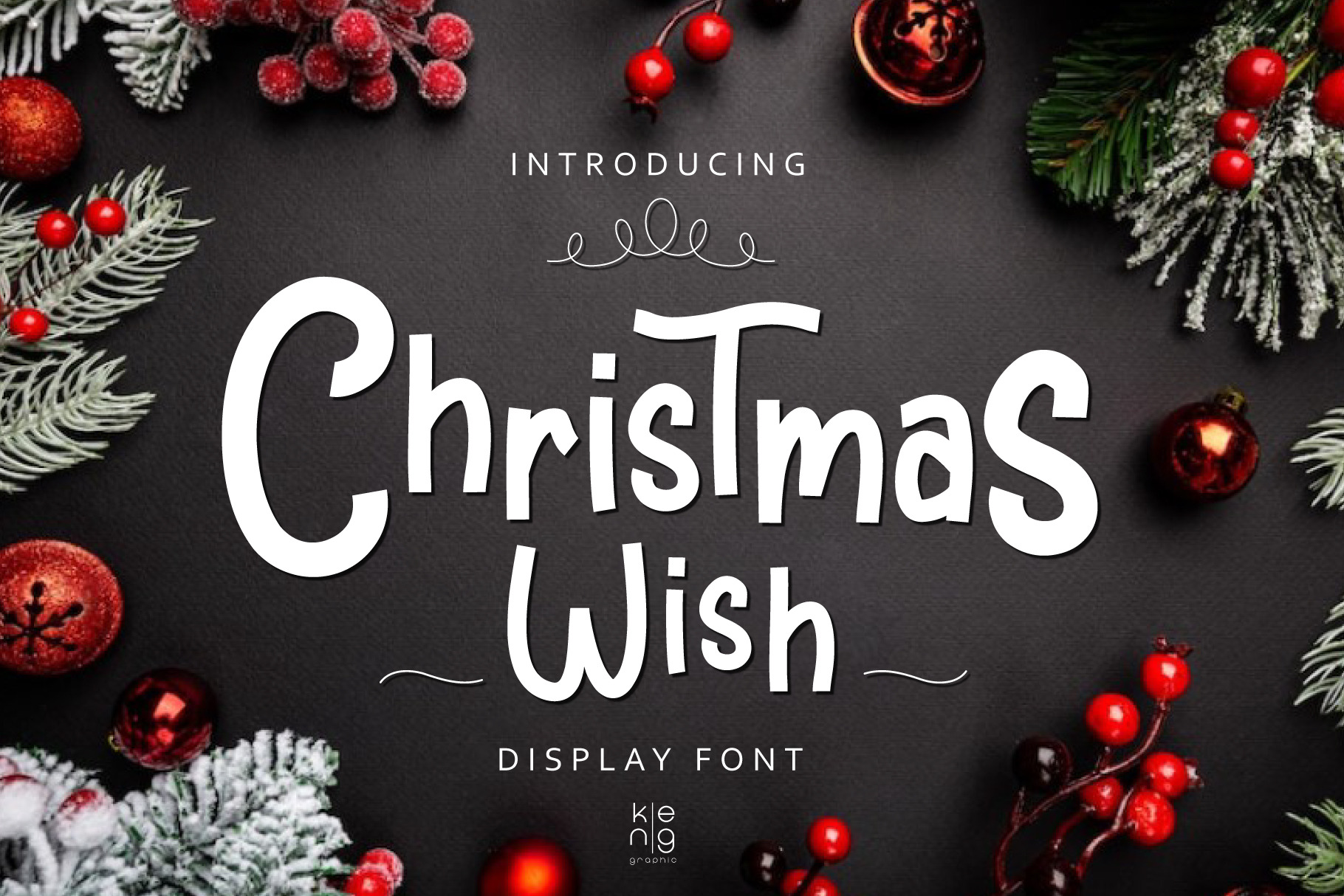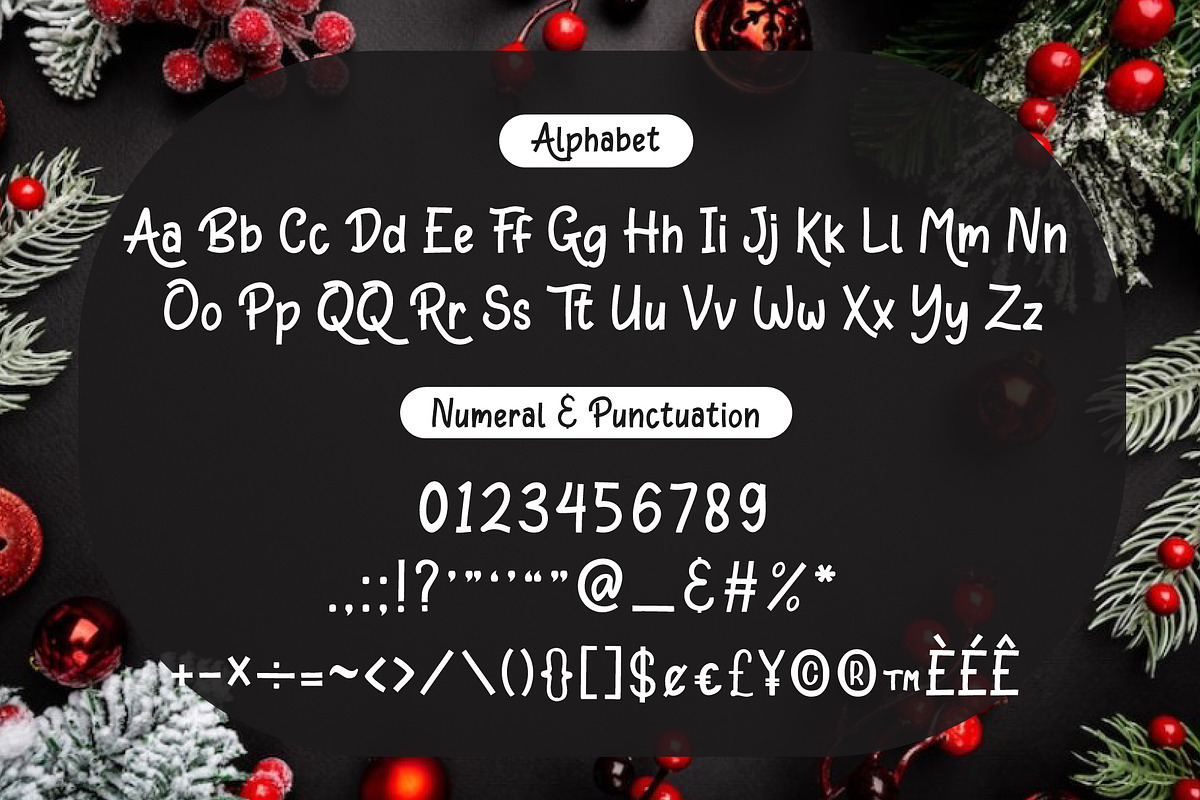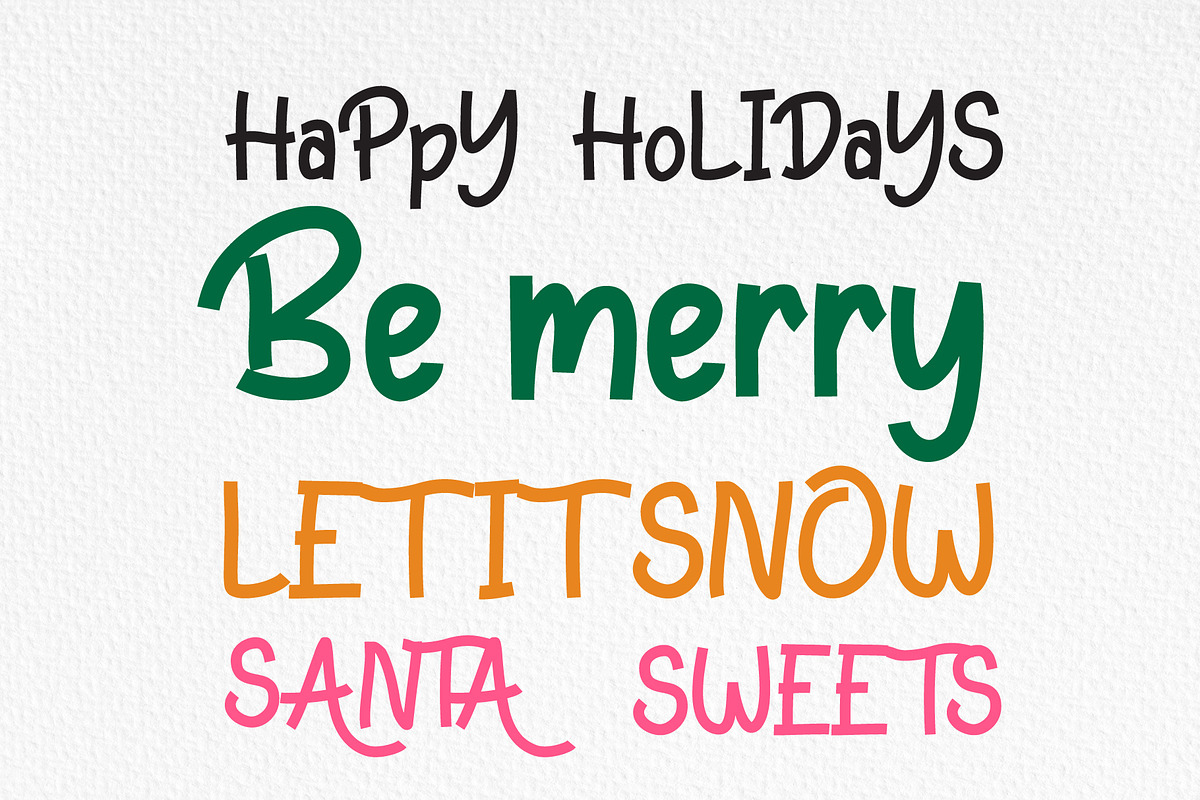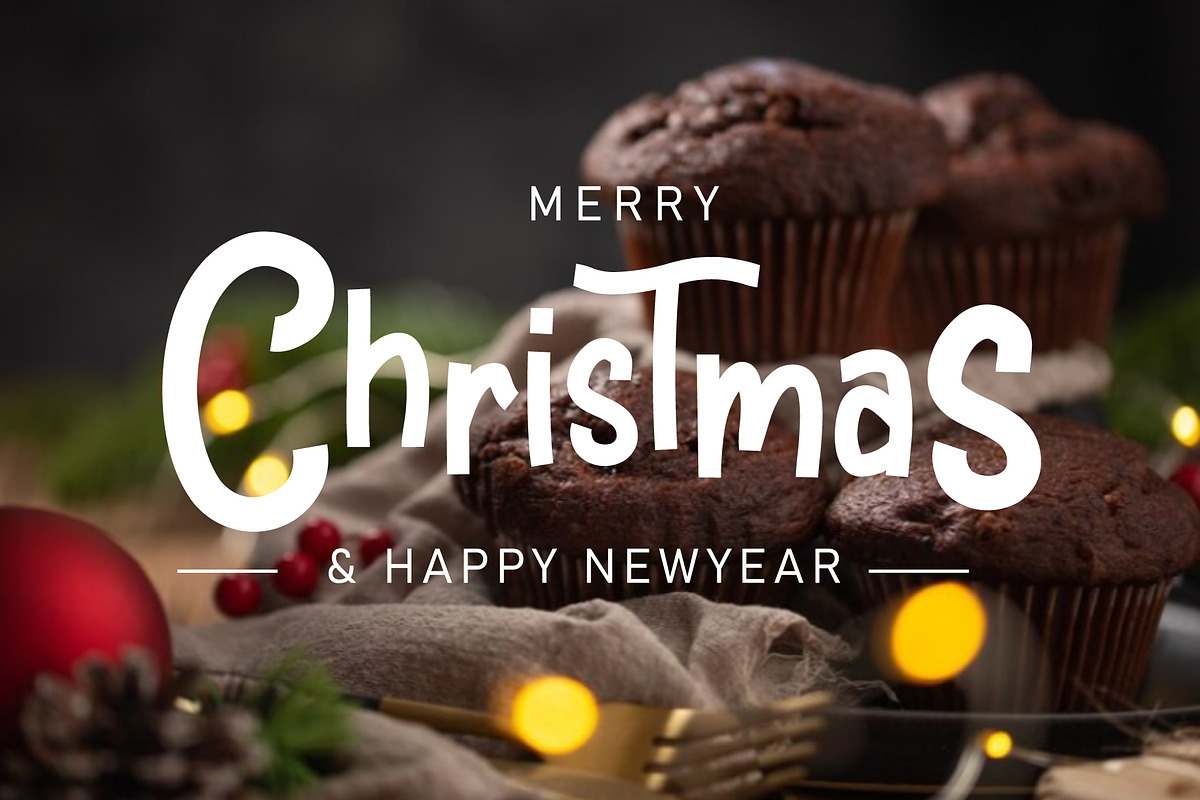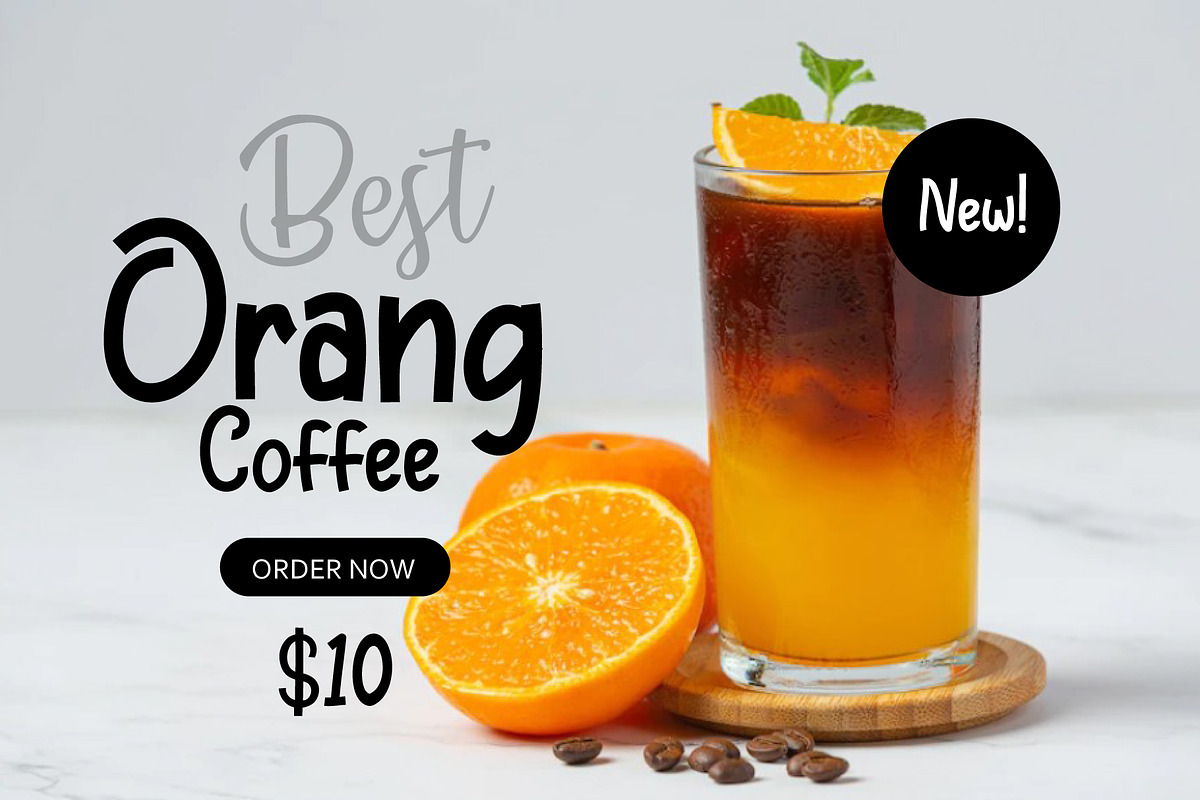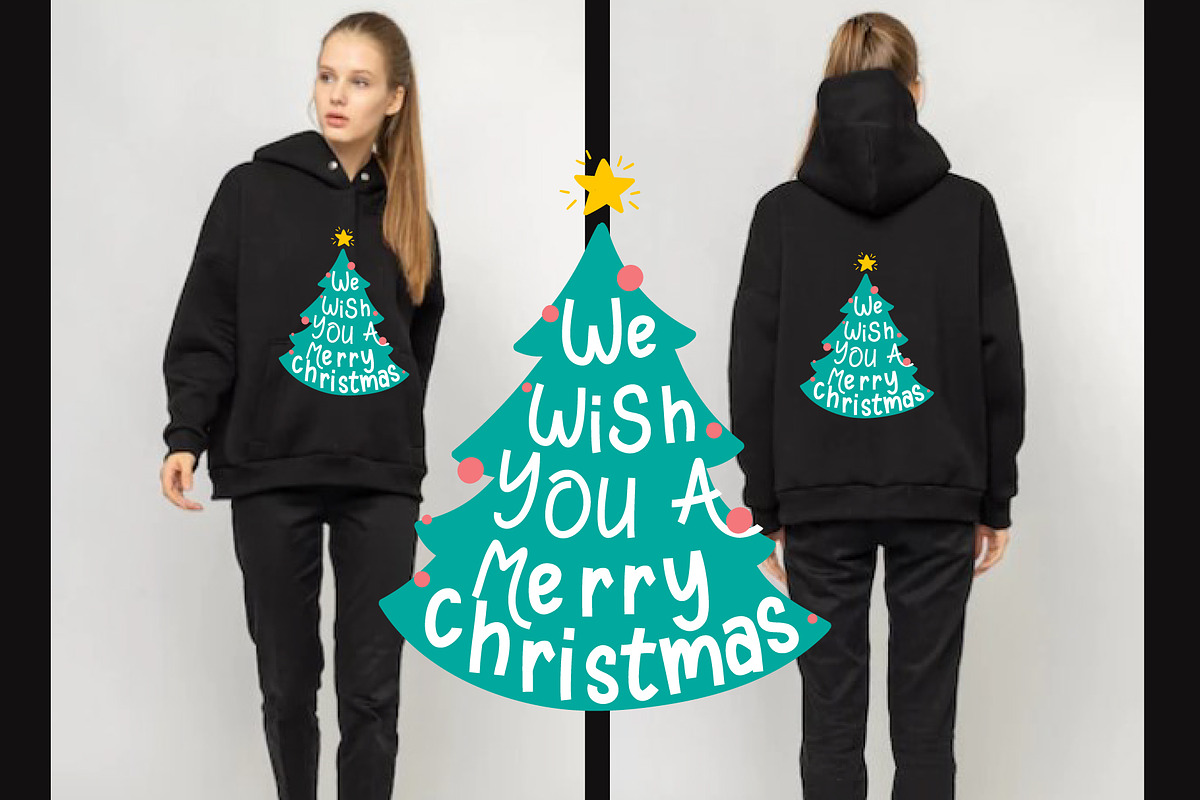
Christmas Wish Font
Christmas Wish is a bold and modern handwritten font that has been expertly designed to give your creations a whimsical look. This font has the potential to take your creativity further.